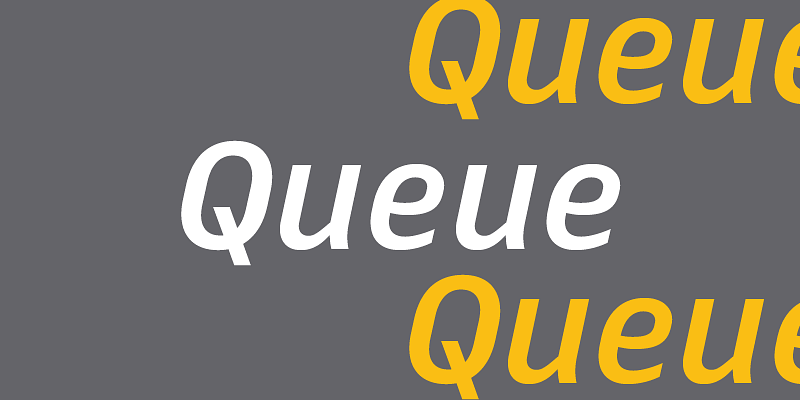
Queue Font Free Download is a modern, clean, and minimalist sans-serif typeface that offers a sophisticated and elegant aesthetic. Designed with clarity and precision in mind, Queue is perfect for use in branding, web design, editorial layouts, and any project where a contemporary, professional look is needed.
Its simple yet striking design, with its balanced proportions and sleek lines, ensures high readability, making it ideal for both display text and body copy. The font’s versatility allows it to perform well in various contexts, from corporate branding to creative advertising.